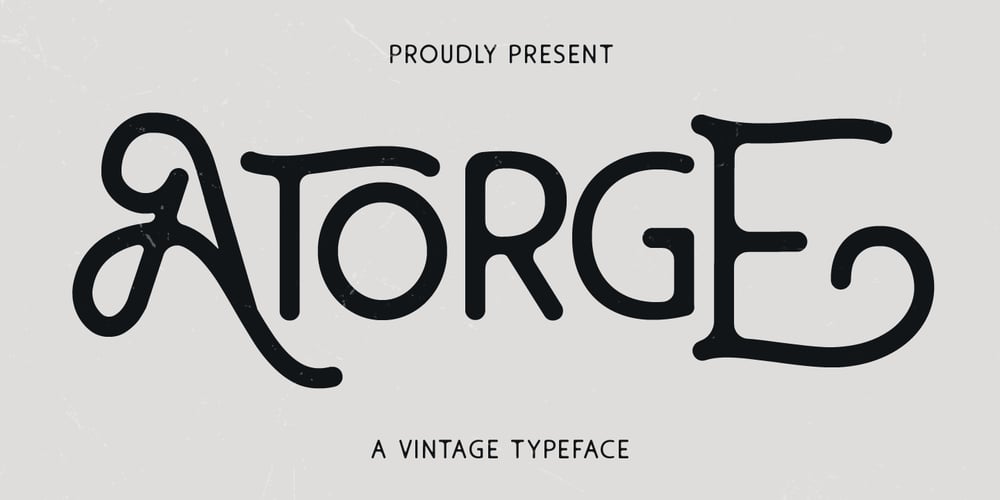
Atorge Font Family was designed by Gilang Maulana and published by Maulana Creative. Atorge contains 1 styles and family package options. Give your designs an authentic handcrafted feel. “Atorge” is perfectly suited to signature, stationery, logo, typography quotes, magazine or book cover, website header, clothing, branding, packaging design and more.Thanks for use this font ~ Maulana